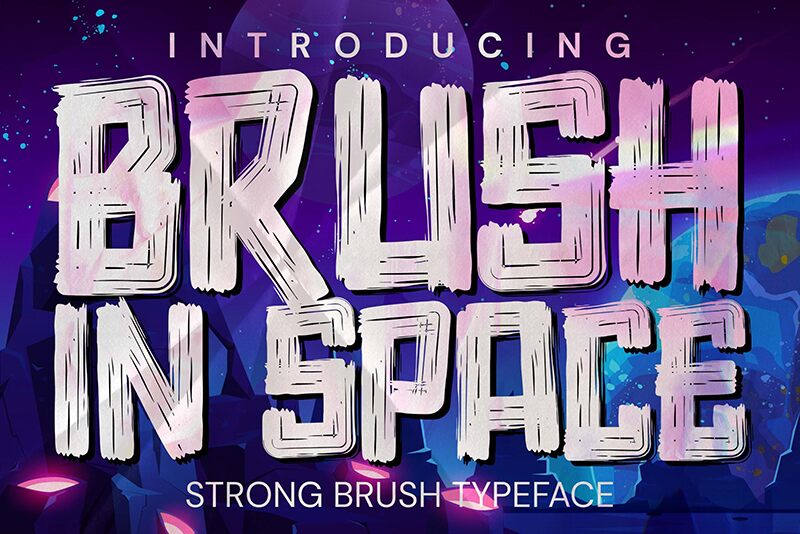
Introducing Brush in Space, a bold futuristic brush font designed by Anang Fibriyanto at Cornertype Studio Indonesia. Perfect for outer-space themed projects such as logos, titles and branding, and more.